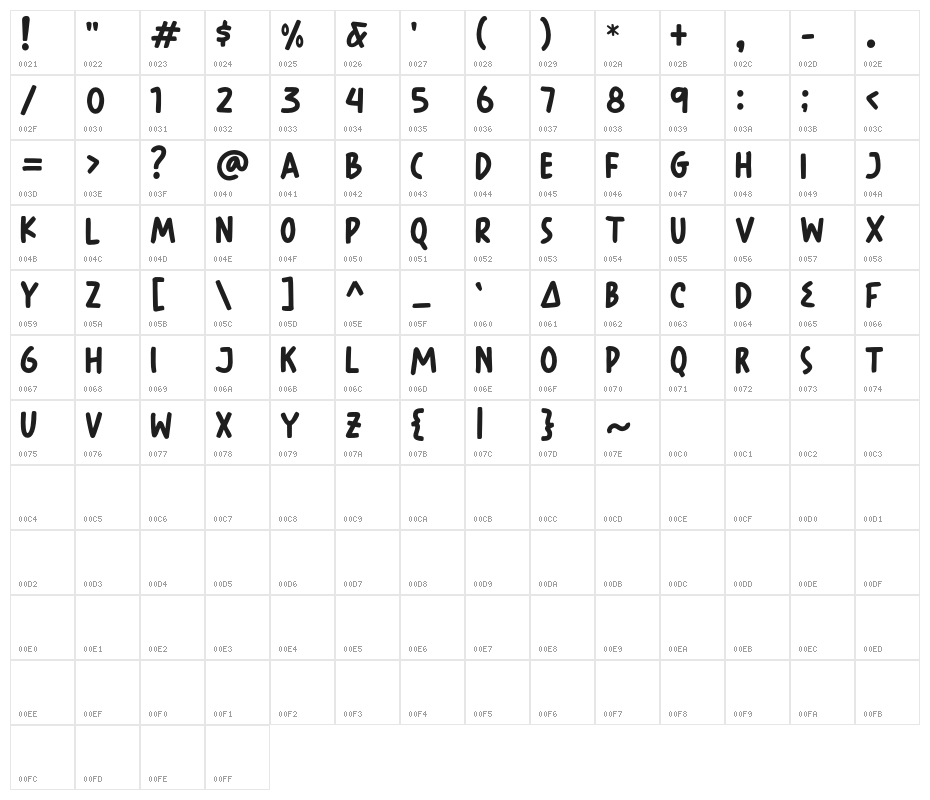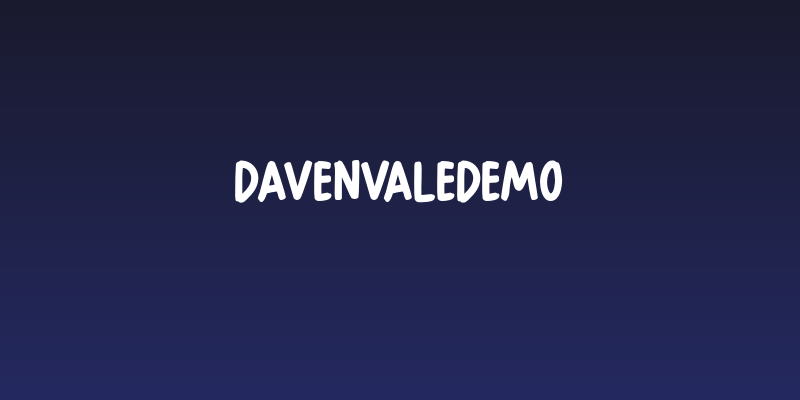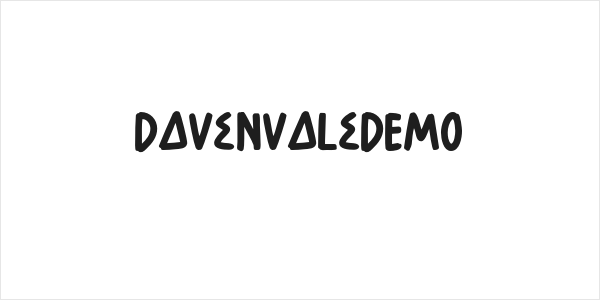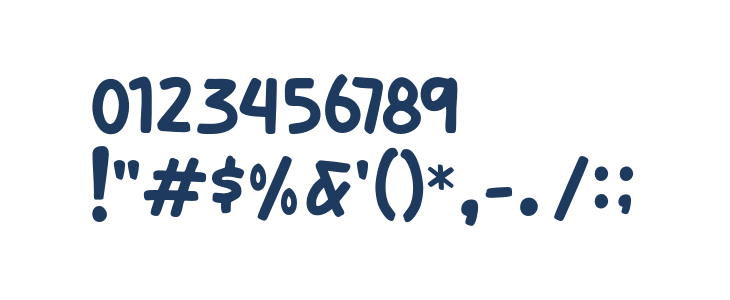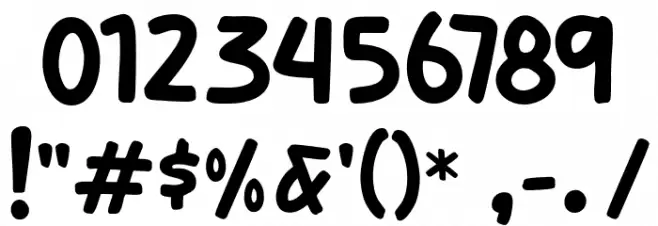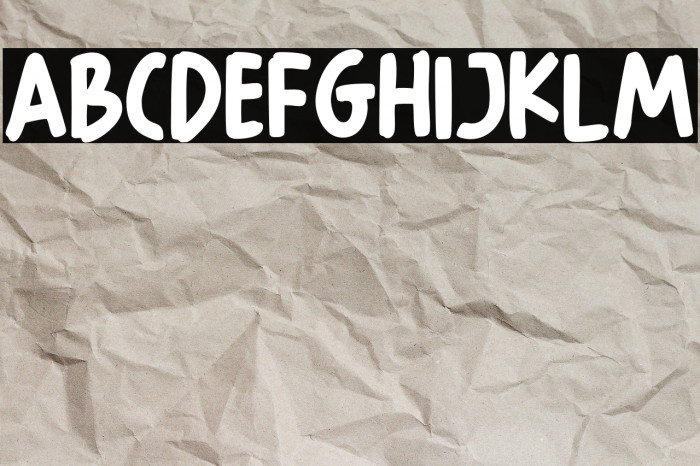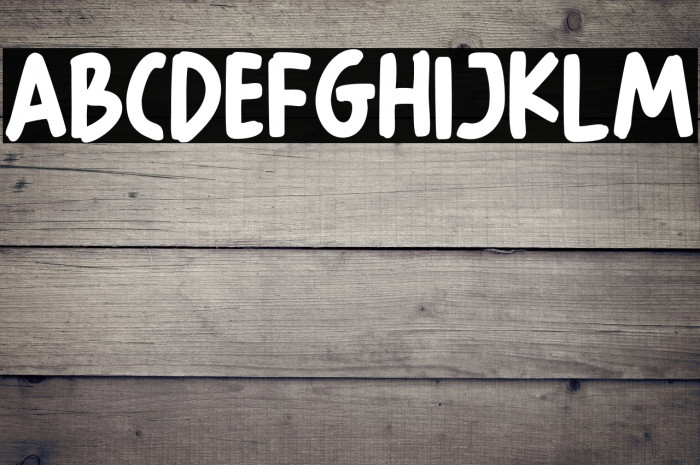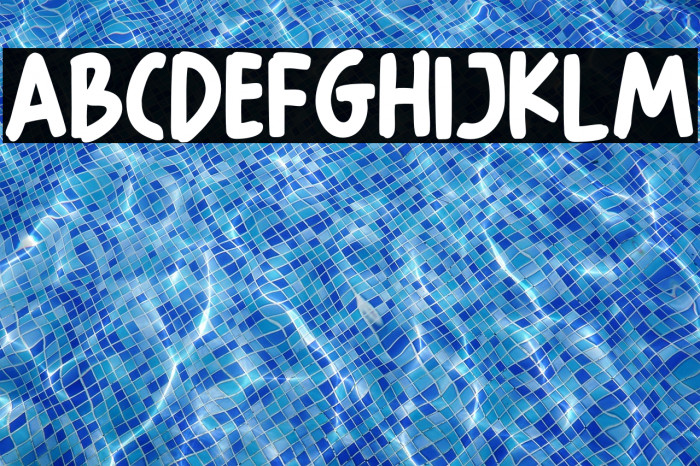
DavenvaleDEMO Font
DavenvaleDEMO Description
This font features bold, rounded letters with a playful and informal style. The characters are slightly irregular, giving them a hand-drawn appearance that adds a touch of whimsy. The uppercase and lowercase letters maintain a consistent weight, contributing to a cohesive look. The numbers and special characters are designed to match the overall aesthetic, ensuring versatility across different uses. The font's boldness makes it highly legible, even at smaller sizes, while the rounded edges soften its appearance, making it approachable and friendly.
| Proposed Projects | Ideal for children's books, playful branding, casual invitations, and social media graphics. |